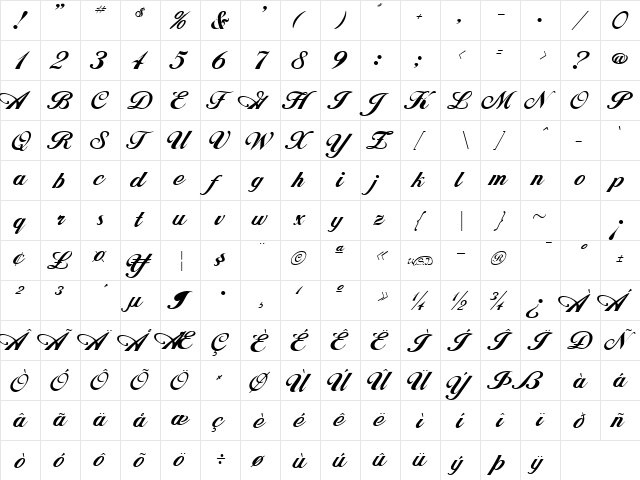
JohnHancock normal
Design Context for JohnHancock Typeface
JohnHancock is a composed and adaptable typeface that performs quietly and consistently across a wide range of design contexts.